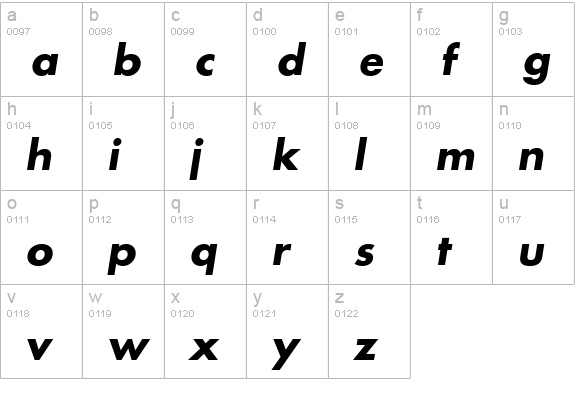
Futura Bold Oblique is a strong, high-contrast, italic variant in the Futura typeface family \xE2\x80\x94 well suited to headlines, attention-grabbing titles, and strong calls-to-action.
Futura Bold Oblique font is a sleek and modern typeface that exudes confidence and sophistication. Its distinctive slanted style adds a touch of elegance to any design project, making it perfect for conveying a sense of boldness and creativity. The strong, geometric shapes of the letters give Futura Bold Oblique a timeless appeal that is both classic and contemporary. This versatile font is ideal for a wide range of applications, from branding and advertising to editorial design and web graphics. Its bold weight and oblique slant make it stand out on any platform, ensuring that your message is delivered with impact and style. Best of all, Futura Bold Oblique font is available for free download at FontsMarket.com. This means you can easily access this premium typeface without any cost, making it a valuable addition to your font collection. Whether you're working on a personal project or a professional assignment, Futura Bold Oblique font is sure to elevate your design to the next level.